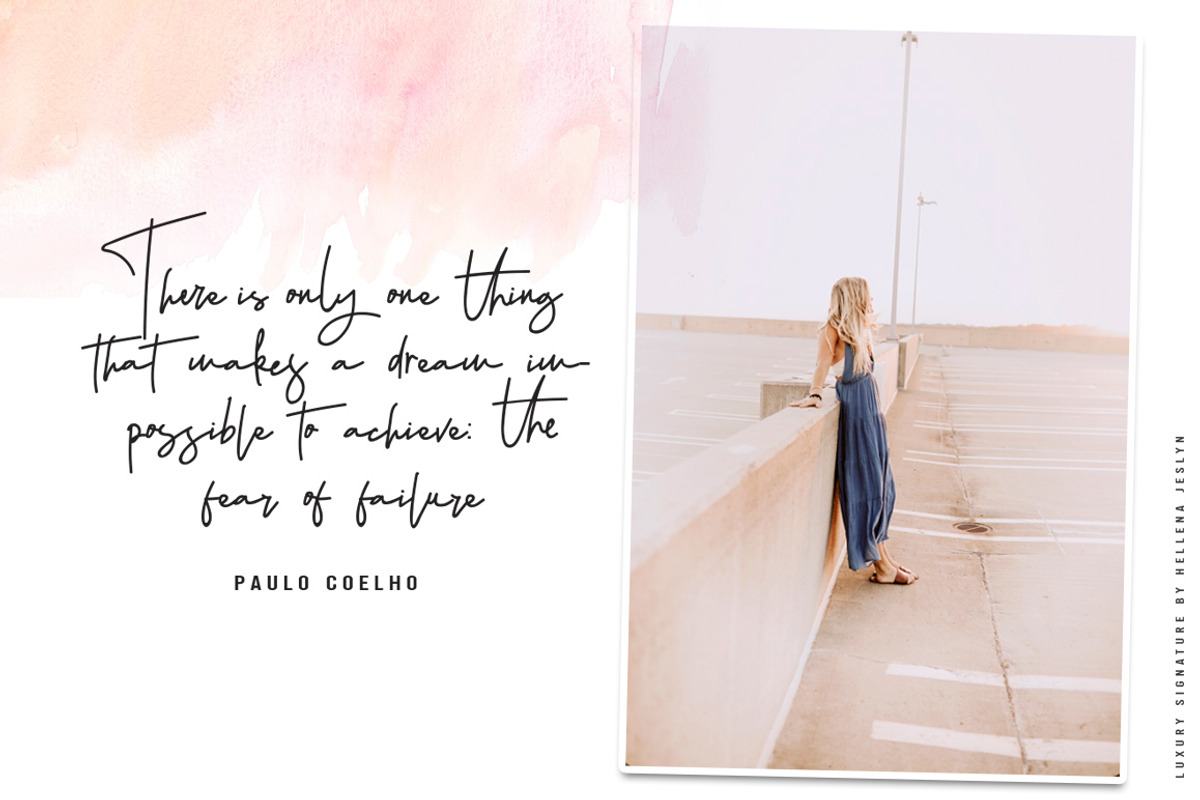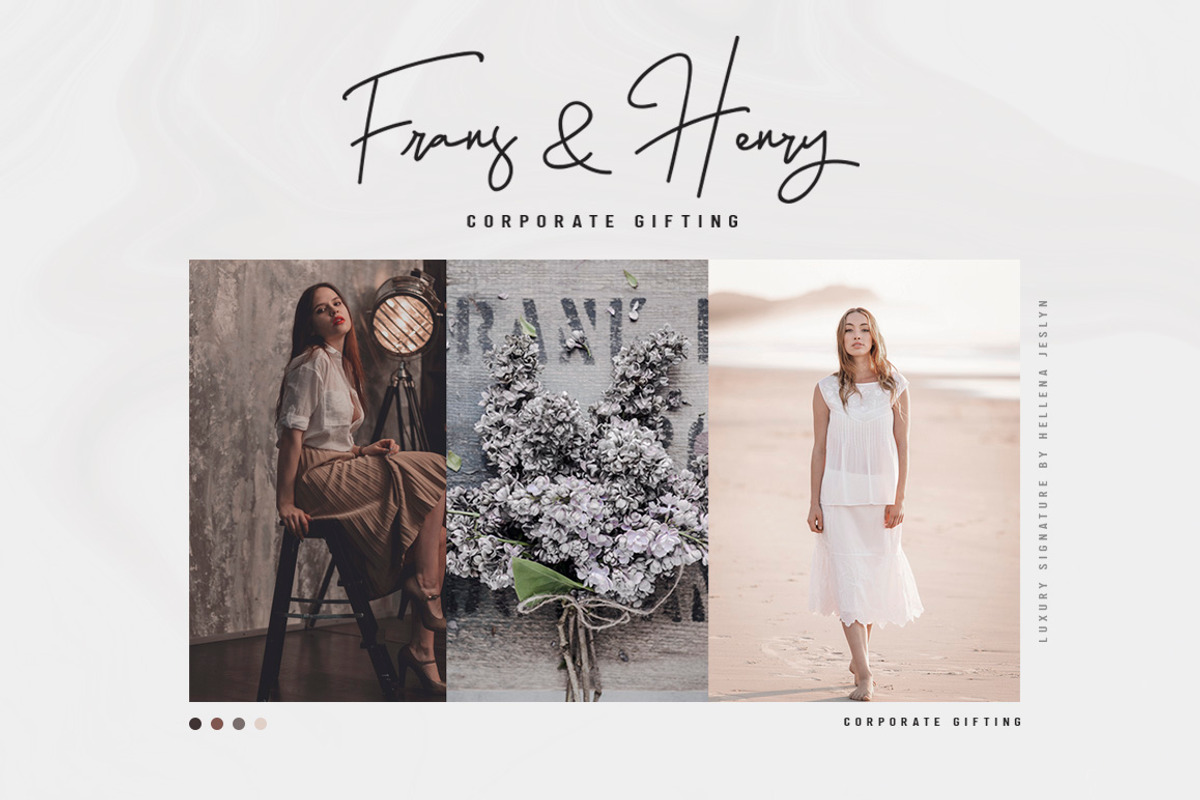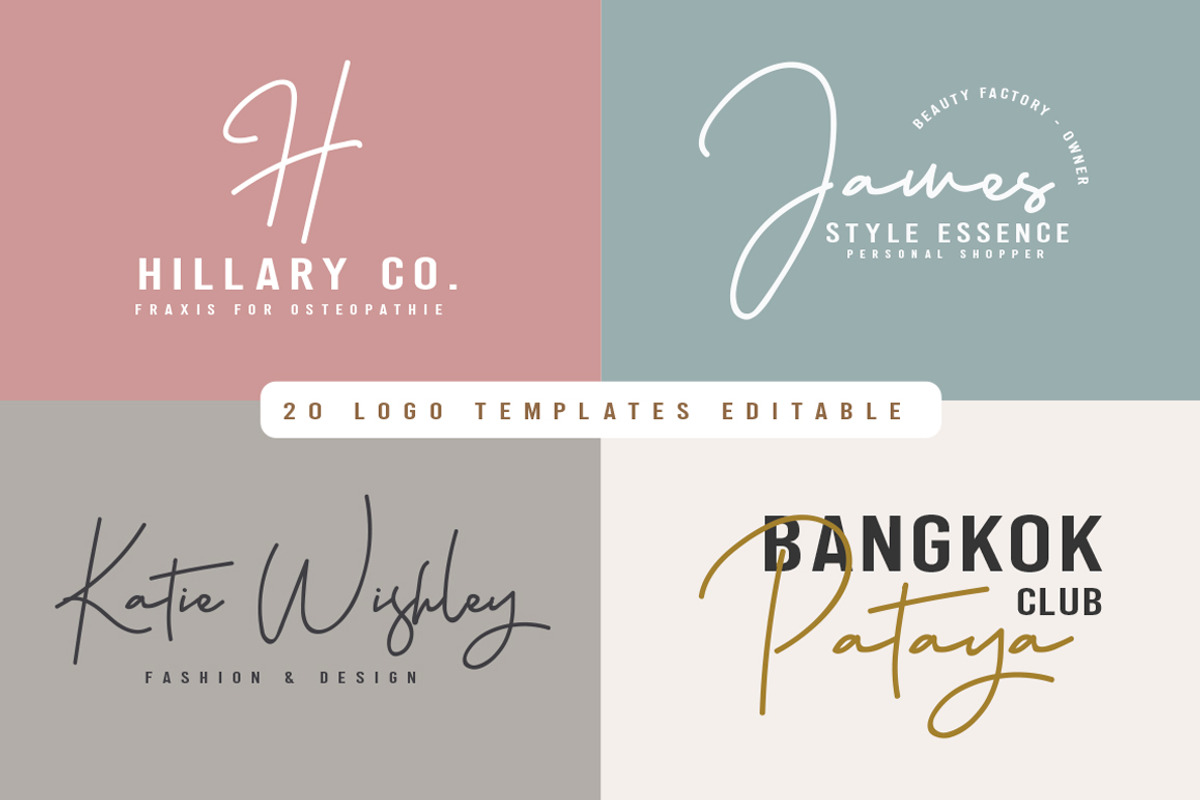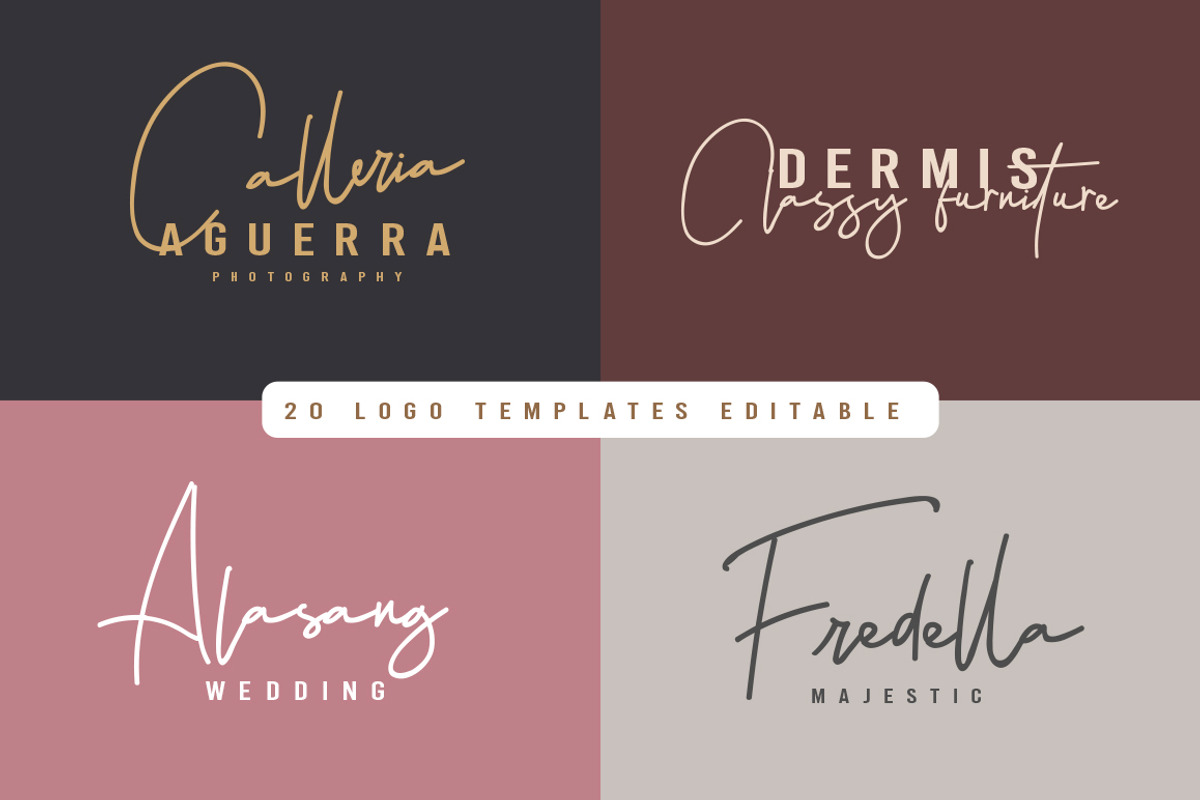
Hellena Jeslyn Font Duo (Free Logo)
Anxiety Studio proudly presents, Hellena Jeslyn Font Duo is a signature font classy, fun, free compilation expressive and cool script inspired by a luxury fashion. Contemporary handwriting fonts with ligatures and alternative styles ready to add unique look and bloom on your design.
Hellena Jeslyn two of our newest fonts with monoline and sans Serif. This script is also equipped with Ligatures and Stylistic Alternates which will make the font signatures more real. Hellena Jeslyn is the best choice font for: Wedding Invitations, quotes, Posters, Logos, Print Ads, Digital Ads, Promotional Products etc.
Hellena Jeslyn design harmony two pretty fonts with install fonts Hellena san serif. This is perfect for logos, quotes prints, designs wedding, advertising, product design, social media, web, badge, packaging, titles, posters, t-shirts / apparel, greeting cards and wedding invitations, & etc.
Each letter has an alternate option of your choice. Adobe users have access to each Opentype panel and Glyphs panel. Just use this Opentype combination:
Stylistic Alternates: change any letters, open the glyphs panel and you can choose the letter as needed.
Contextual Alternate: Automatically updates all the first & last letters and adds a complete look that is unique to any word. Imitating calligraphic styles and true font signatures when the last letter is always slightly different from the others.
Standard Ligatures :If you have opentype software, 'Discretionary Ligatures' can be turned on for the Script fonts, which will automatically switch standard letter pairs into the provided ligatures.